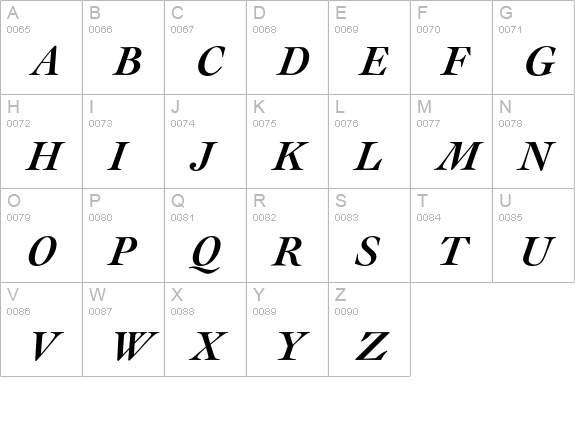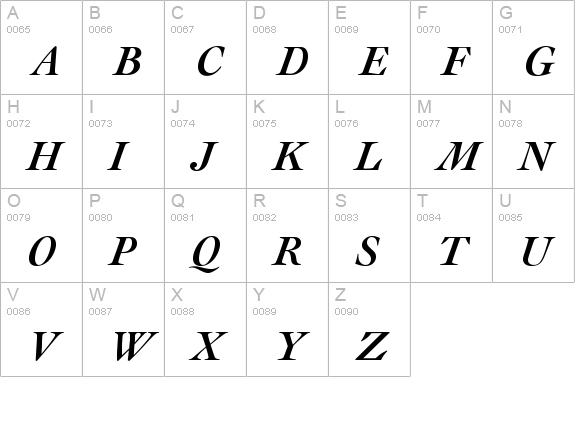
Le Cochin Medium Italic is a balanced, medium-weight, italic variant in the Le typeface family \xE2\x80\x94 well suited to sub-headlines, navigation, and balanced editorial work.
Le Cochin Medium Italic font is a stunning display of elegance and sophistication. Its medium weight adds just the right amount of boldness, while the italic style brings a touch of flair and personality. This font is perfect for those seeking a balance between classic and contemporary design. With its graceful curves and delicate letterforms, Le Cochin Medium Italic exudes a sense of refinement and refinement. The precise detailing of each character is a testament to the craftsmanship behind this typeface. Whether used for headings, titles, or body text, Le Cochin Medium Italic will elevate any project to new heights of visual appeal. What sets Le Cochin Medium Italic apart from other fonts is its versatility. It seamlessly blends into a variety of contexts, from high-end editorial layouts to modern branding projects. Its timeless aesthetic ensures that it will remain relevant for years to come. The best part? Le Cochin Medium Italic is available for free download at FontsMarket.com. This means that designers, creatives, and typophiles alike can easily access and incorporate this stunning font into their work. The freedom to explore and experiment with Le Cochin Medium Italic is at your fingertips. So why wait? Embrace the beauty and sophistication of Le Cochin Medium Italic today. Download it for free at FontsMarket.com and let your creativity soar.